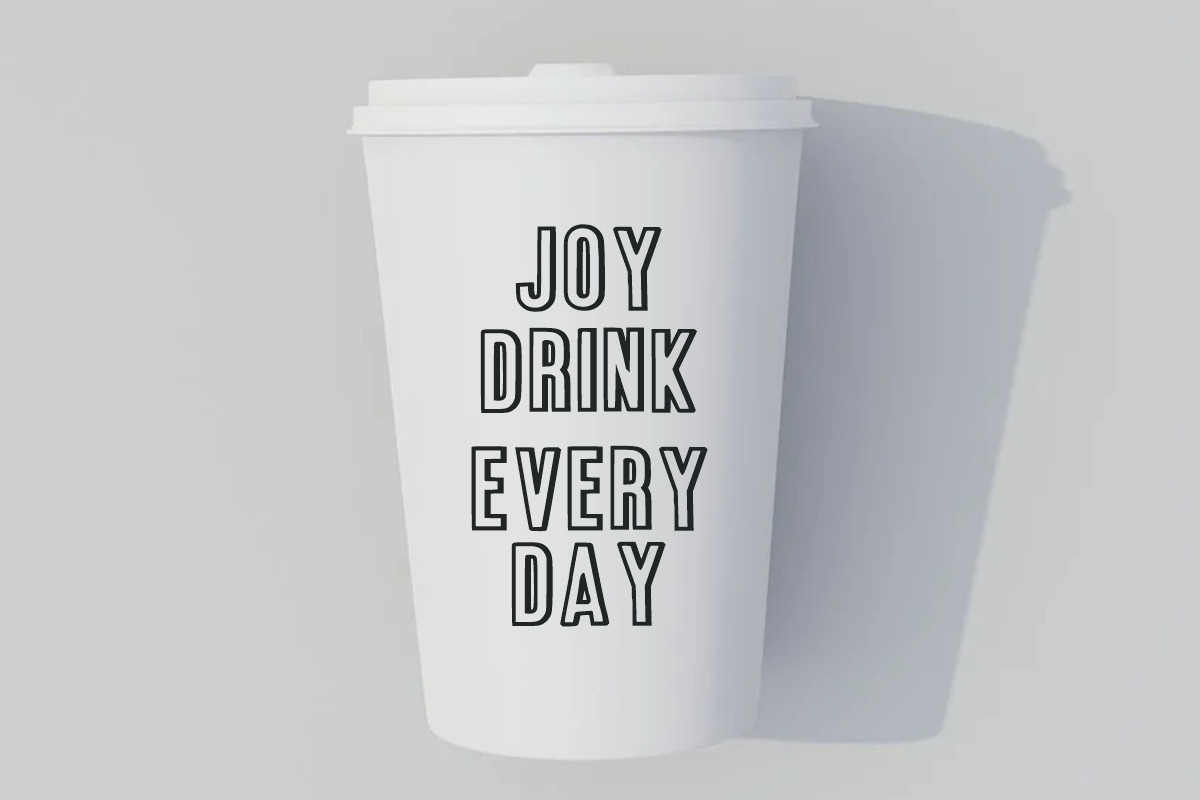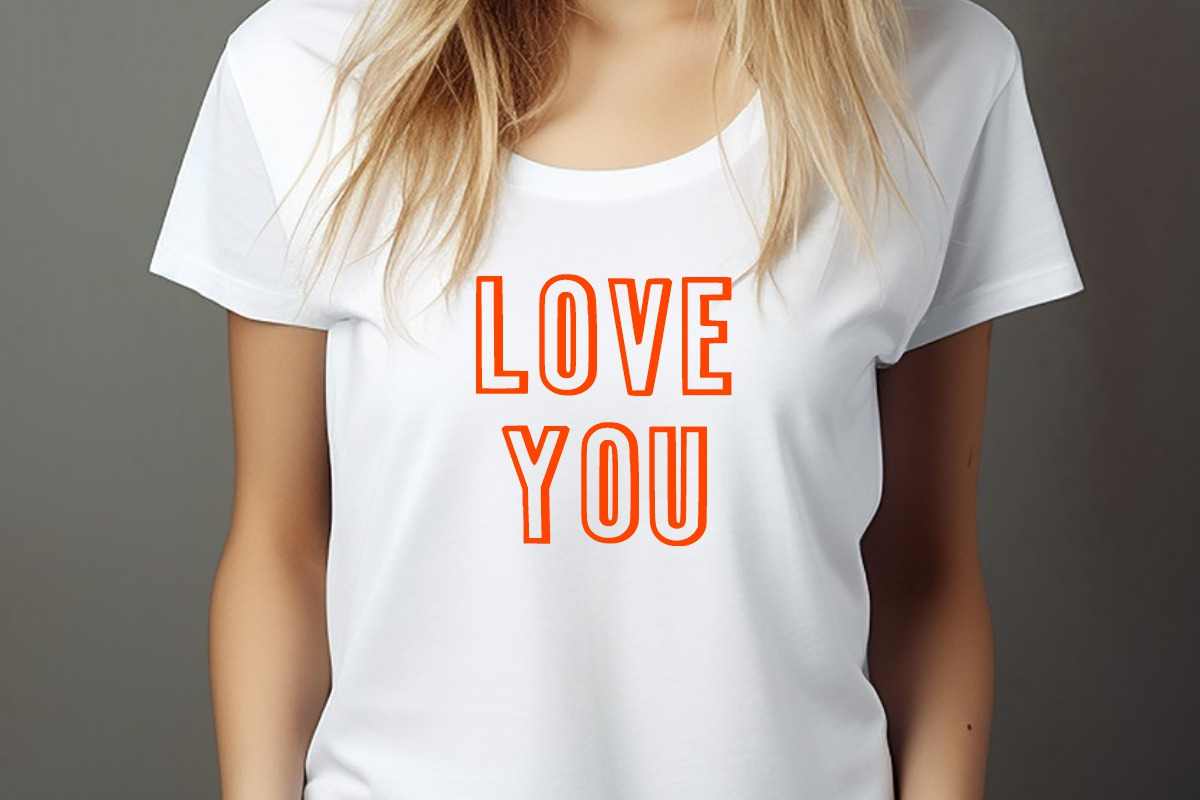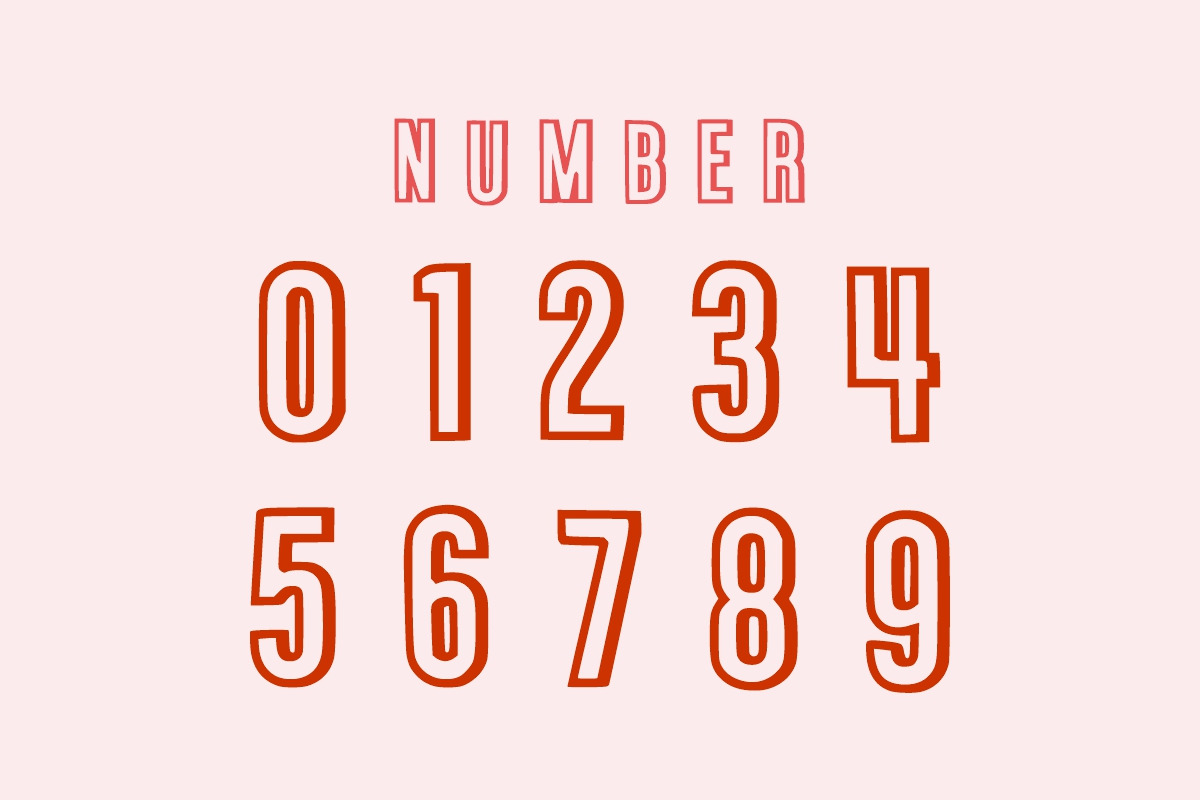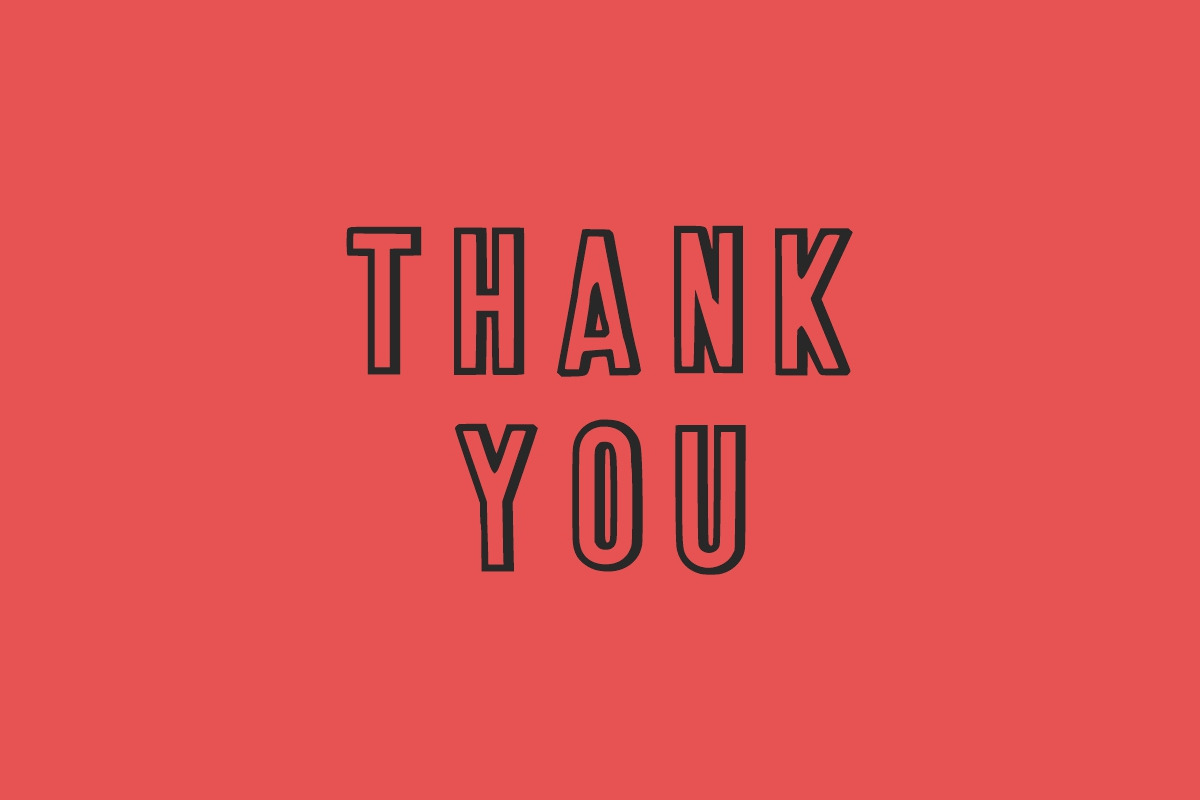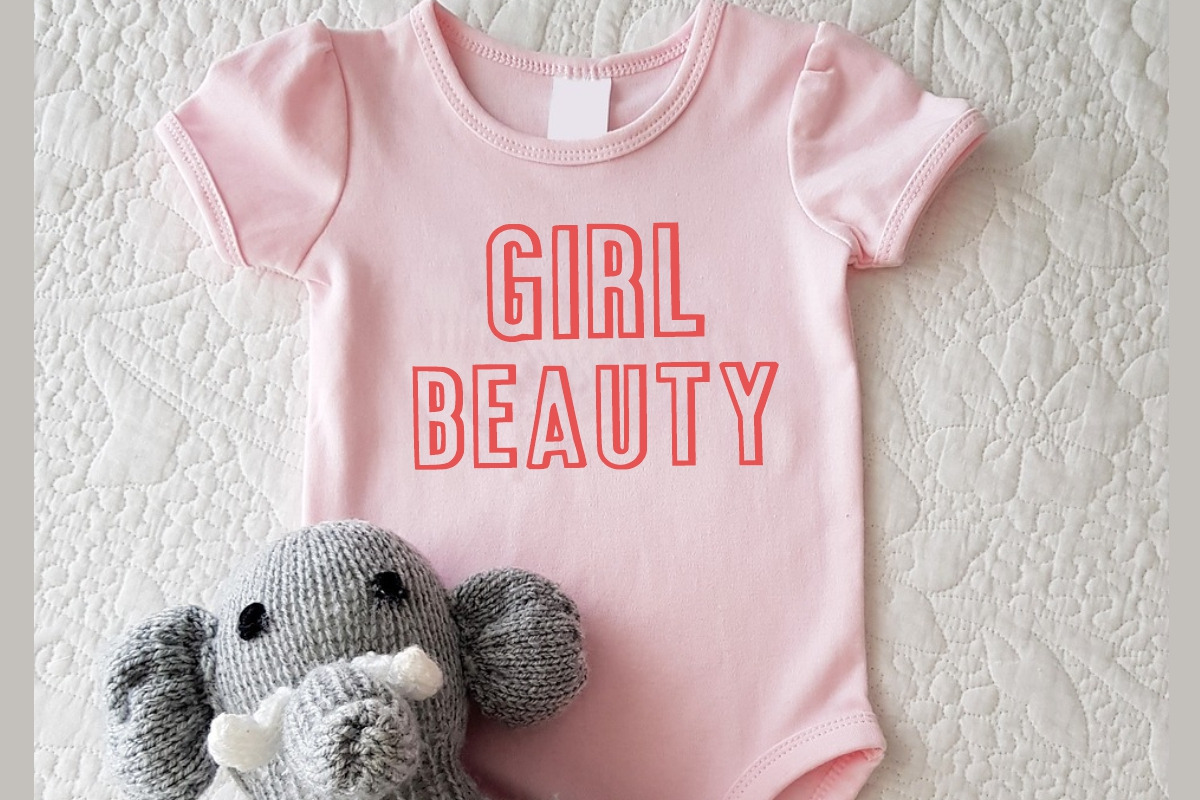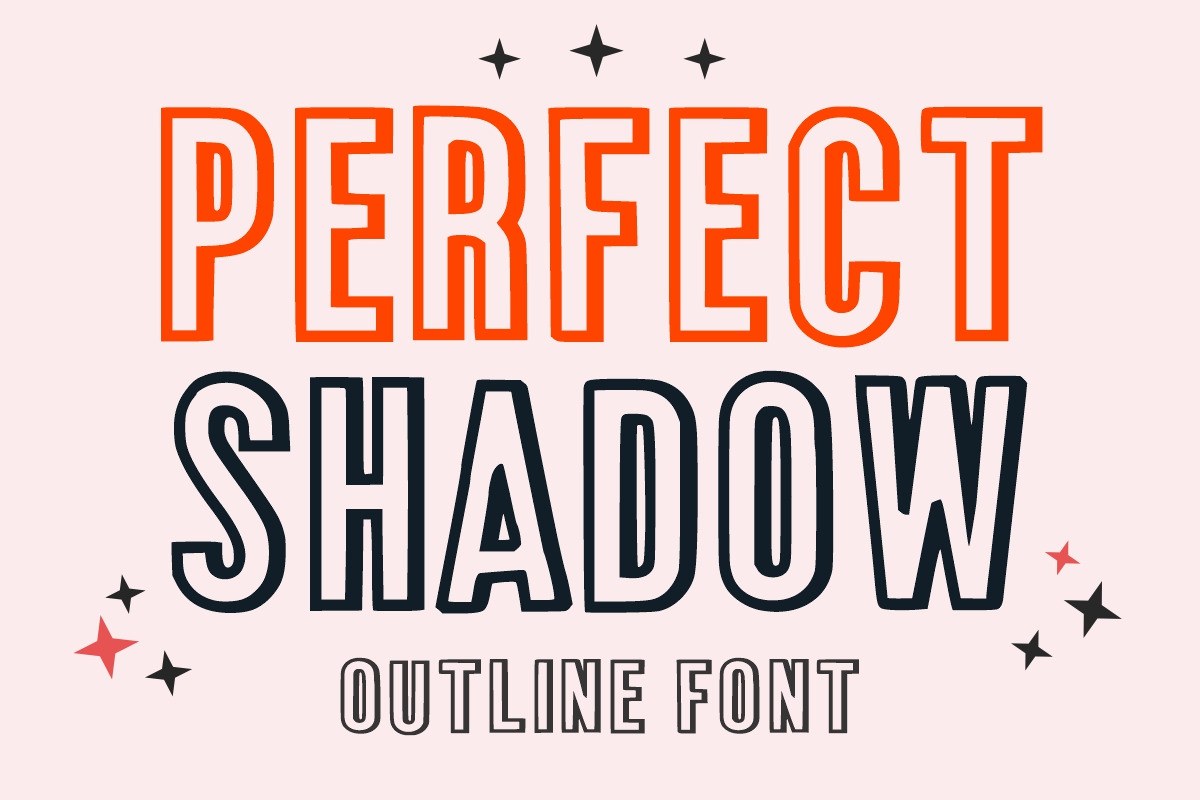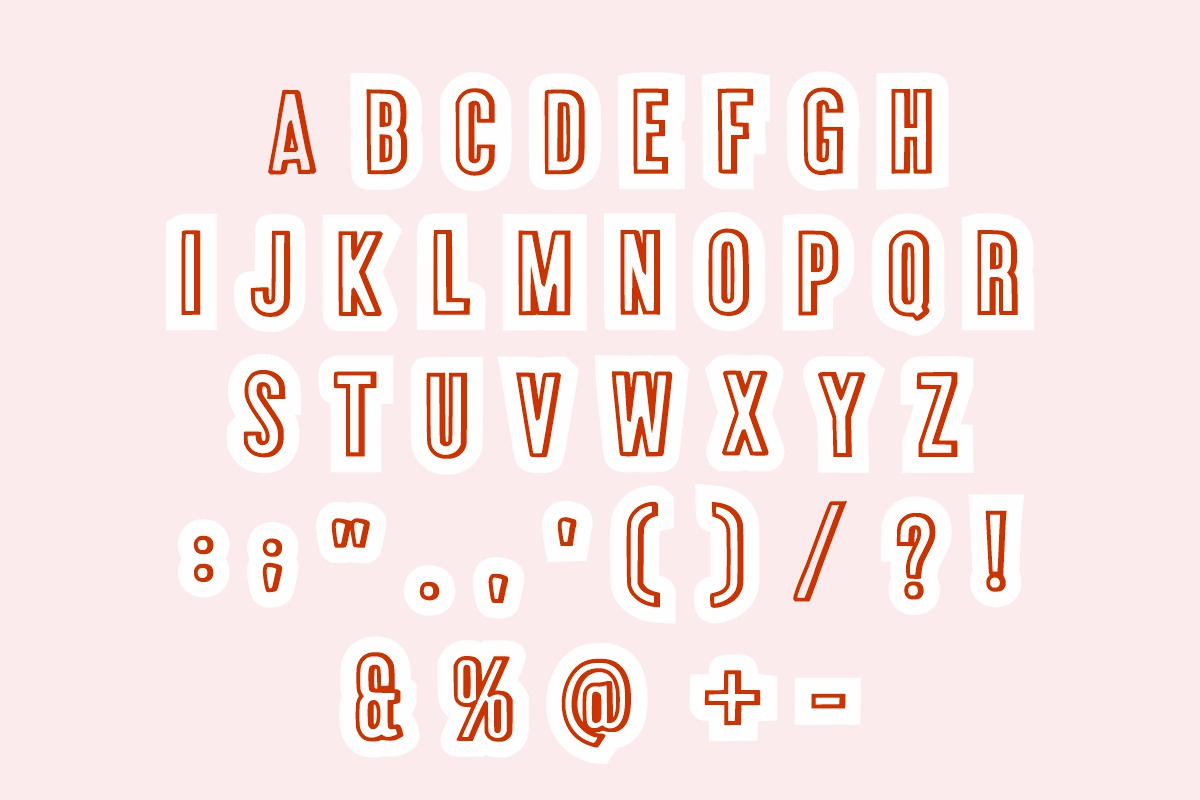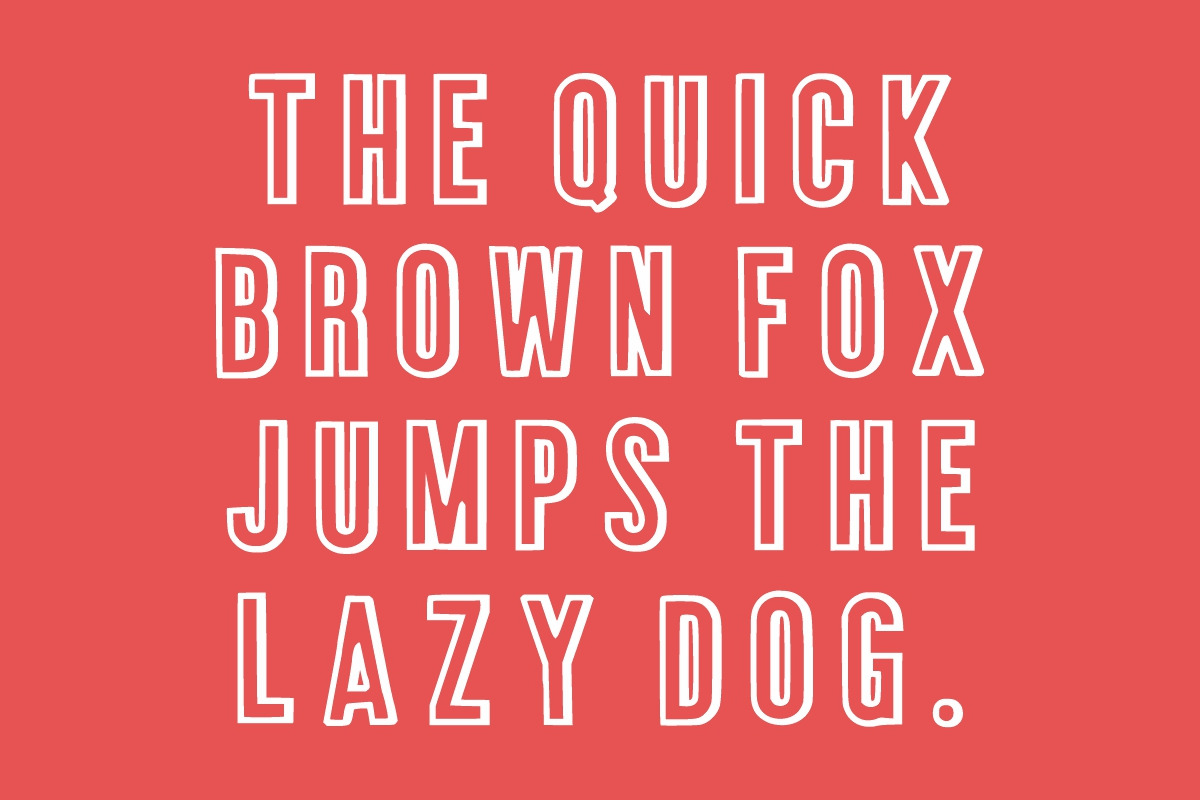
PERFECT SHADOW OUTLINE FONT
PERFECT SHADOW is an outline type and adaptable display font. It is easy to read and conveys impeccable friendliness. Whether you’re using it for crafts, digital design, presentations, or making greeting cards, this font has the potential to become your favorite go-to font.